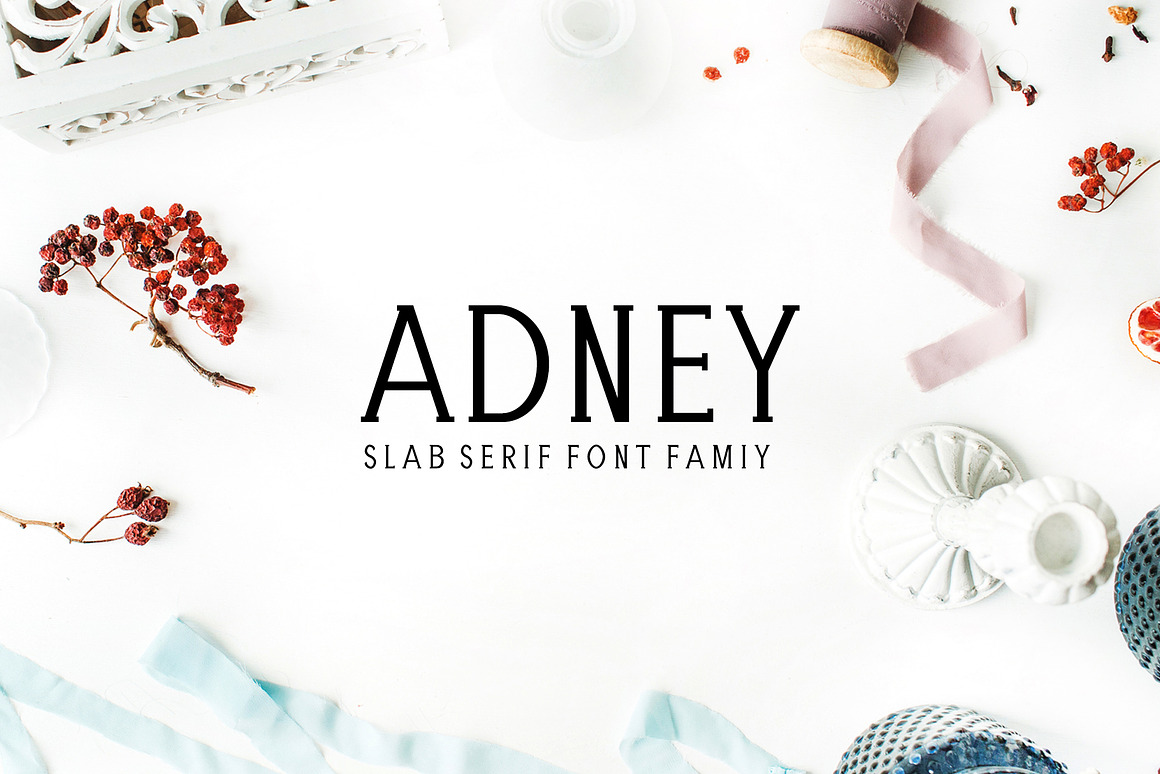
Adney Slab Serif Font Family
Adney Slab Serif Font Family is perfect for newspaper headlines, magazine mastheads, book chapter titles, vintage-inspired branding, western-themed designs, rustic signage, craft brewery logos, and artisanal product packaging.
Adney Slab Serif Font Family is exciting because it combines classic slab serif tradition with contemporary refinement, featuring bold, chunky serifs that command attention while maintaining excellent readability. Its robust character creates powerful visual hierarchy and authentic vintage appeal.
Adney Slab Serif Font Family family includes thin, light, regular, medium, bold, and black weights, along with matching italic styles, providing designers with twelve versatile options for comprehensive typographic solutions.
Adney Slab Serif Font Family Free Download offers designers access to premium typography that bridges historical charm with modern functionality. This distinctive typeface showcases carefully crafted letterforms with pronounced slab serifs that create strong visual impact while ensuring optimal legibility across various media applications. The font's architectural strength makes it particularly effective for headlines, display text, and branding projects requiring authoritative presence.
Creative professionals consistently choose Adney Slab Serif Font Family for projects demanding character and personality. Its sturdy construction and vintage-inspired details work exceptionally well for craft industries, artisanal brands, and heritage-focused marketing campaigns. The font's mechanical precision combined with subtle organic touches creates perfect balance between industrial strength and human warmth.
The Adney Slab Serif Font Family download package includes comprehensive punctuation, numerals, and special characters, ensuring professional-grade typography for complex layouts. Its consistent stroke weight and careful spacing optimization make it ideal for both digital screens and high-quality print applications. The font performs exceptionally in editorial design, where readability and visual interest must coexist seamlessly.
Design teams appreciate Adney Slab Serif Font Family's versatility in creating memorable brand identities that stand out in competitive markets. Its distinctive personality helps establish authentic visual voice while maintaining the reliability and professionalism required for serious business communications and editorial applications.